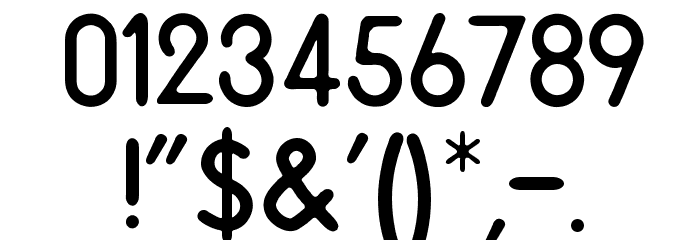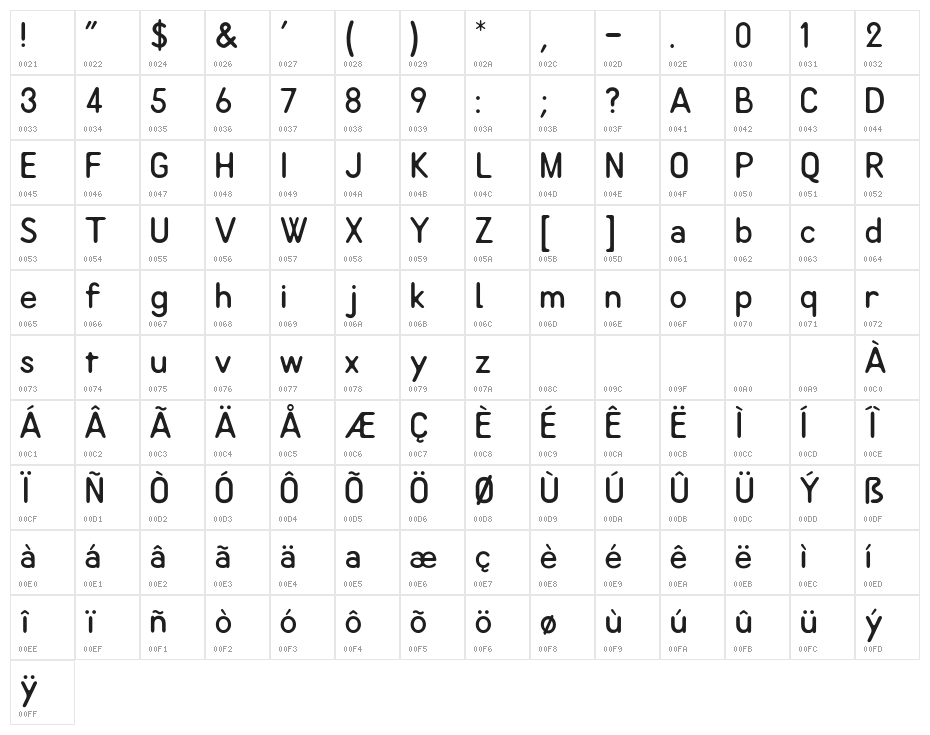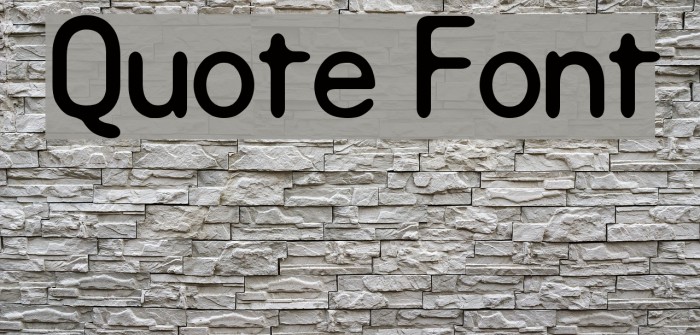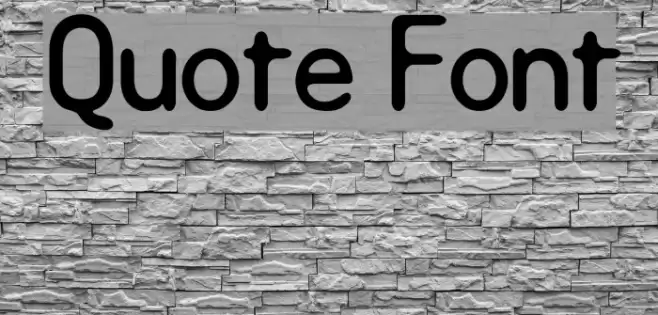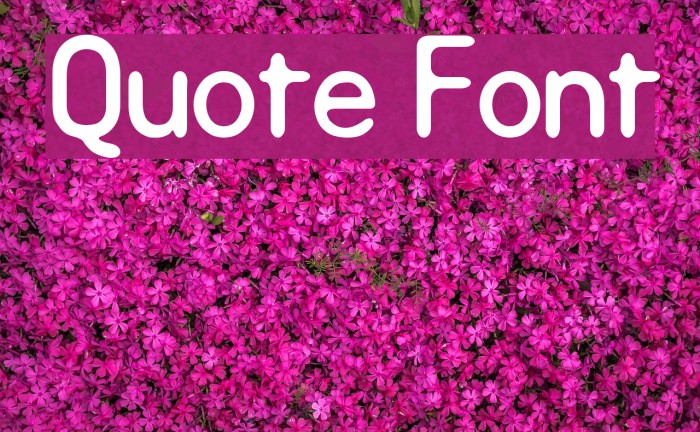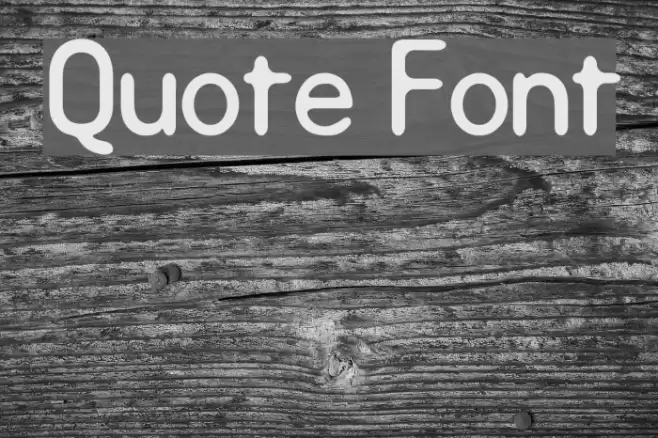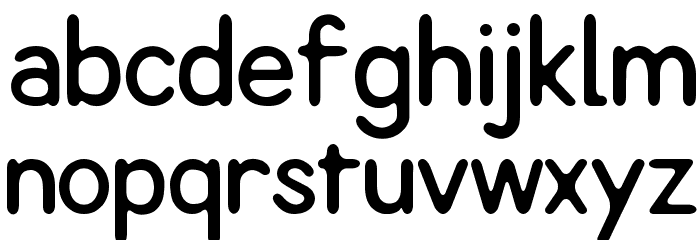
Quote Font
Quote Description
This font features a rounded, playful design with smooth curves and a friendly appearance. The characters are evenly spaced, providing a clean and approachable look. The uppercase and lowercase letters maintain a consistent style, with rounded edges and uniform stroke widths, giving the font a cohesive feel. The numerals and special characters follow the same design principles, ensuring readability and a harmonious appearance. This font is versatile, suitable for both digital and print media, and can be used to convey a sense of warmth and approachability.
| Use Case | Headlines, Logos, Casual Text |
| Proposed Projects | Ideal for children's books, educational materials, friendly branding, and casual invitations. |